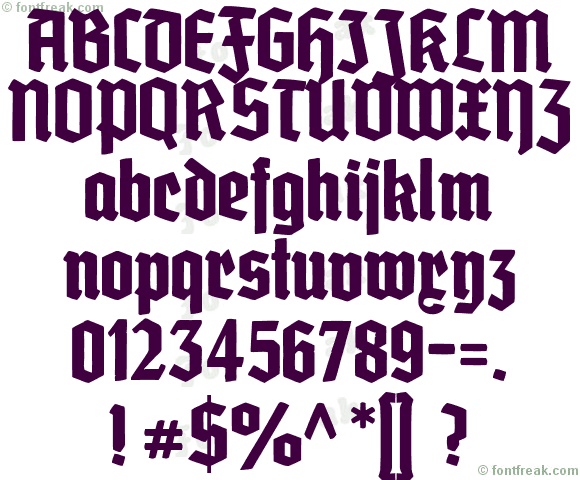
GrobeDeutschmeister
GrobeDeutschmeister is a striking display font designed by Peter Wiegel, falling under the category of decorative typefaces. Its unique visual characteristics feature bold, angular strokes that exude a sense of historical elegance while maintaining a modern flair. The font showcases a moderate contrast in stroke weight, which enhances its legibility and adds a dynamic quality to the overall design. The careful spacing between letters ensures clarity, making it an excellent choice for various applications.
This font is particularly well-suited for use cases such as wedding invitations, where its ornate style can add a touch of sophistication. It also shines on movie posters, helping to convey themes of drama and excitement. Restaurant menus benefit from GrobeDeutschmeister’s bold presence, drawing attention to the name of the establishment and enhancing the overall dining experience. Additionally, it can be used effectively in branding materials for small businesses looking to establish a distinctive identity.
Target audiences for GrobeDeutschmeister include graphic designers who appreciate unique and artistic typefaces, small business owners aiming to make a memorable impression, and content creators seeking to elevate their projects with a standout font. The versatility of this typeface makes it an attractive option for anyone looking to incorporate a touch of creativity into their designs.
In conclusion, GrobeDeutschmeister font free download offers a remarkable blend of traditional and contemporary design elements. Its bold and decorative nature, combined with its versatility across various applications, makes it an exceptional choice for those looking to create visually captivating work. The GrobeDeutschmeister font stands out for its ability to evoke both nostalgia and modernity, ensuring that any project utilizing it will leave a lasting impression.